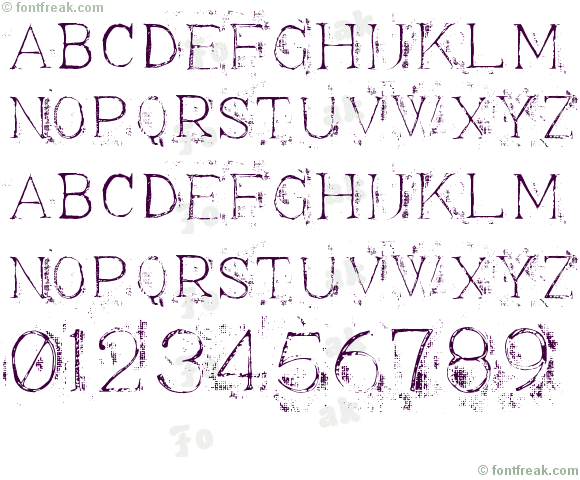
Appendix3
Appendix3 is a distinctive display font designed by Ryoichi Tsunekawa, characterized by its unique blend of playful and rugged aesthetics. This font falls into the decorative category, featuring an eye-catching design that combines both boldness and a hint of personality. The stroke weight varies, creating a dynamic contrast that draws attention while maintaining legibility. Its spacing is thoughtfully crafted, ensuring that each character stands out without overwhelming the viewer. Decorative elements such as uneven edges and a slightly distressed texture add character, making it perfect for a variety of creative projects.
This font excels in specific use cases, making it a versatile choice for graphic designers and small business owners. It is particularly well-suited for wedding invitations, where its whimsical flair can help set a celebratory tone. Additionally, Appendix3 can be effectively used for movie posters, lending a unique visual impact that captures audience interest. Restaurant menus can benefit from its distinctive style, creating an atmosphere that reflects the establishment's personality. Furthermore, this font is an excellent choice for branding projects, where it can help convey a brand's identity and values.
Targeting graphic designers, content creators, and entrepreneurs, Appendix3 offers a fresh alternative to traditional font choices. It invites creativity and encourages experimentation, making it a valuable addition to any designer's toolkit.
What truly sets the Appendix3 font apart is its ability to evoke emotion while remaining functional. Its distinctive style captures attention and sparks curiosity, making it a standout choice for anyone looking to make a memorable impression. For those interested in adding this unique typeface to their collection, an Appendix3 font free download is readily available, providing a fantastic opportunity to explore its potential in various design applications.